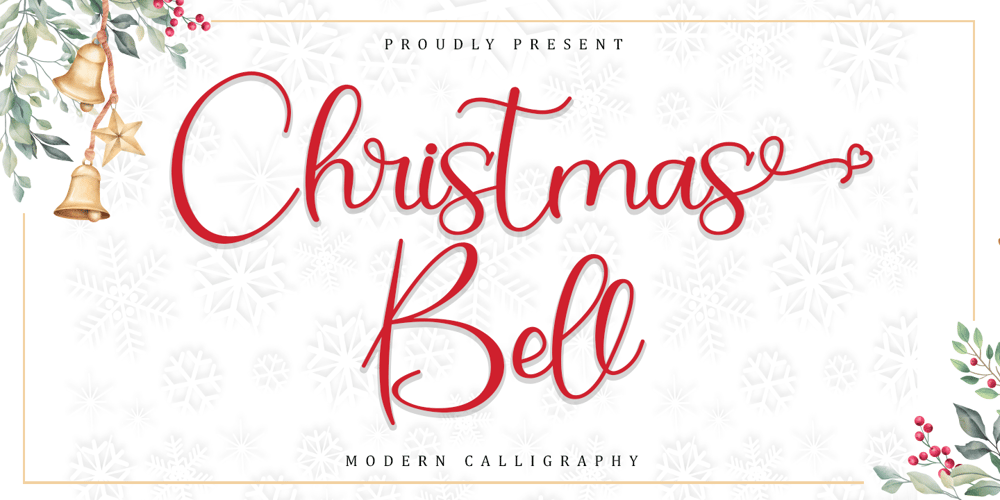
Christmas Bell
Christmas Bell font
Christmas Bell Font Family was designed by Alif Ryan Zulfikar and published by Sakha Design. Christmas Bell contains 1 styles and family package options. Christmas Bell is a delicate, fresh, rich, and elegant handwritten font. It is ideal for holiday-themed greeting cards and for any crafting project that requires a warm touch. It is PUA encoded which means you can access all of the glyphs and swashes with ease!